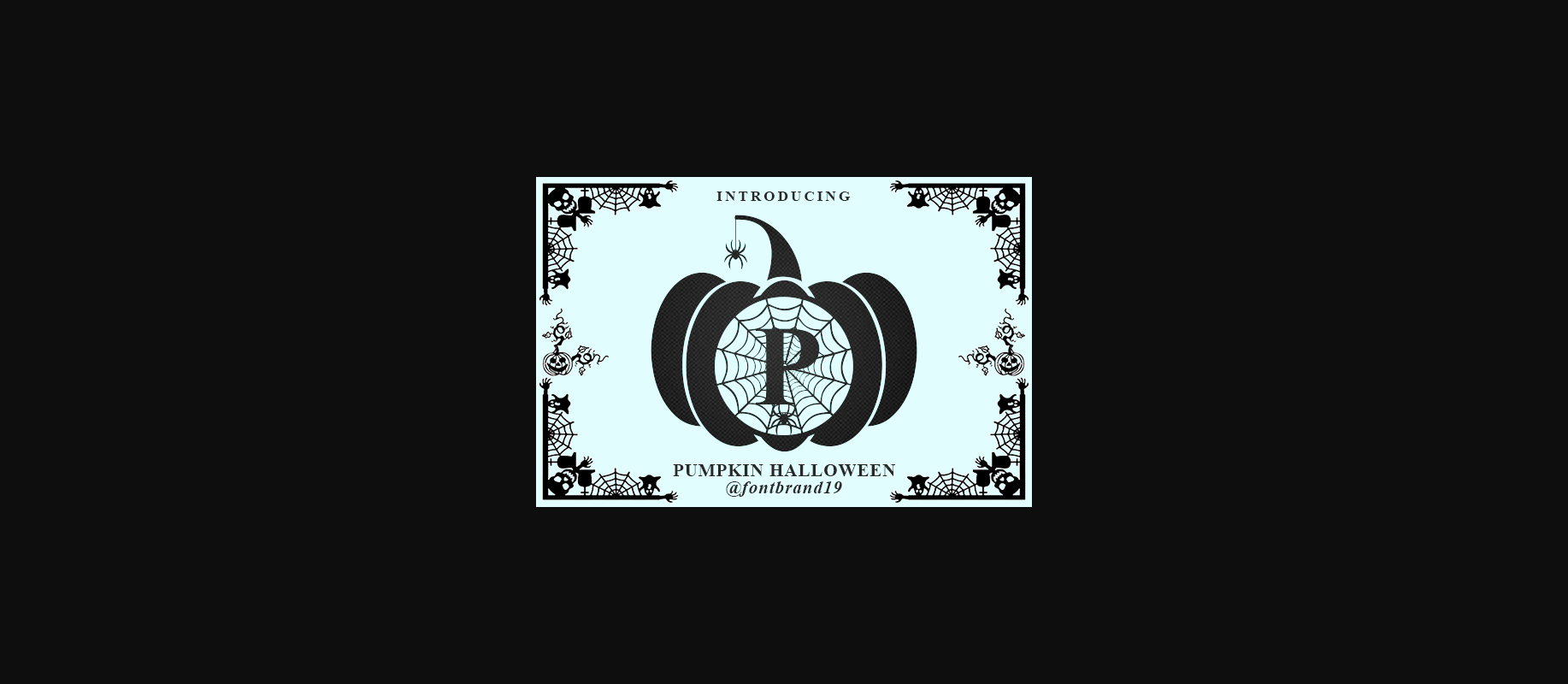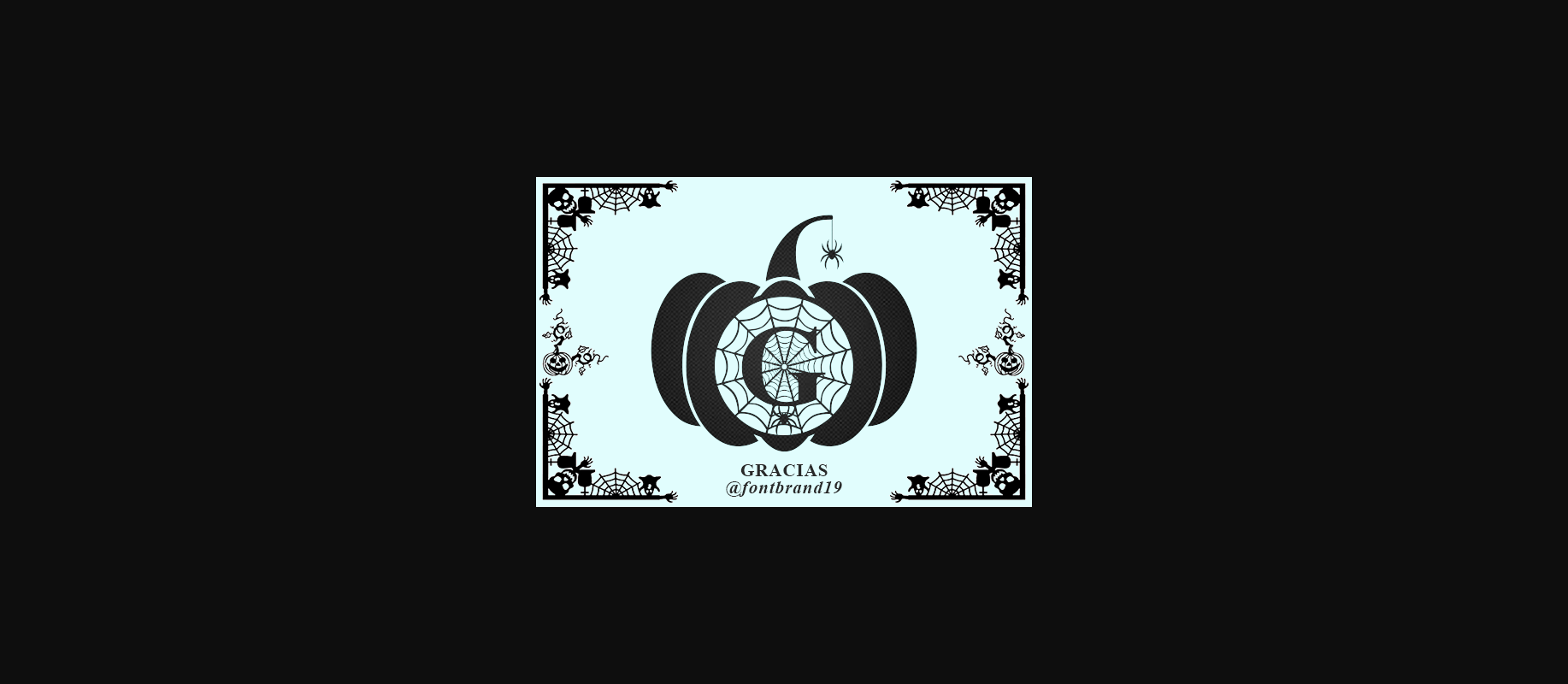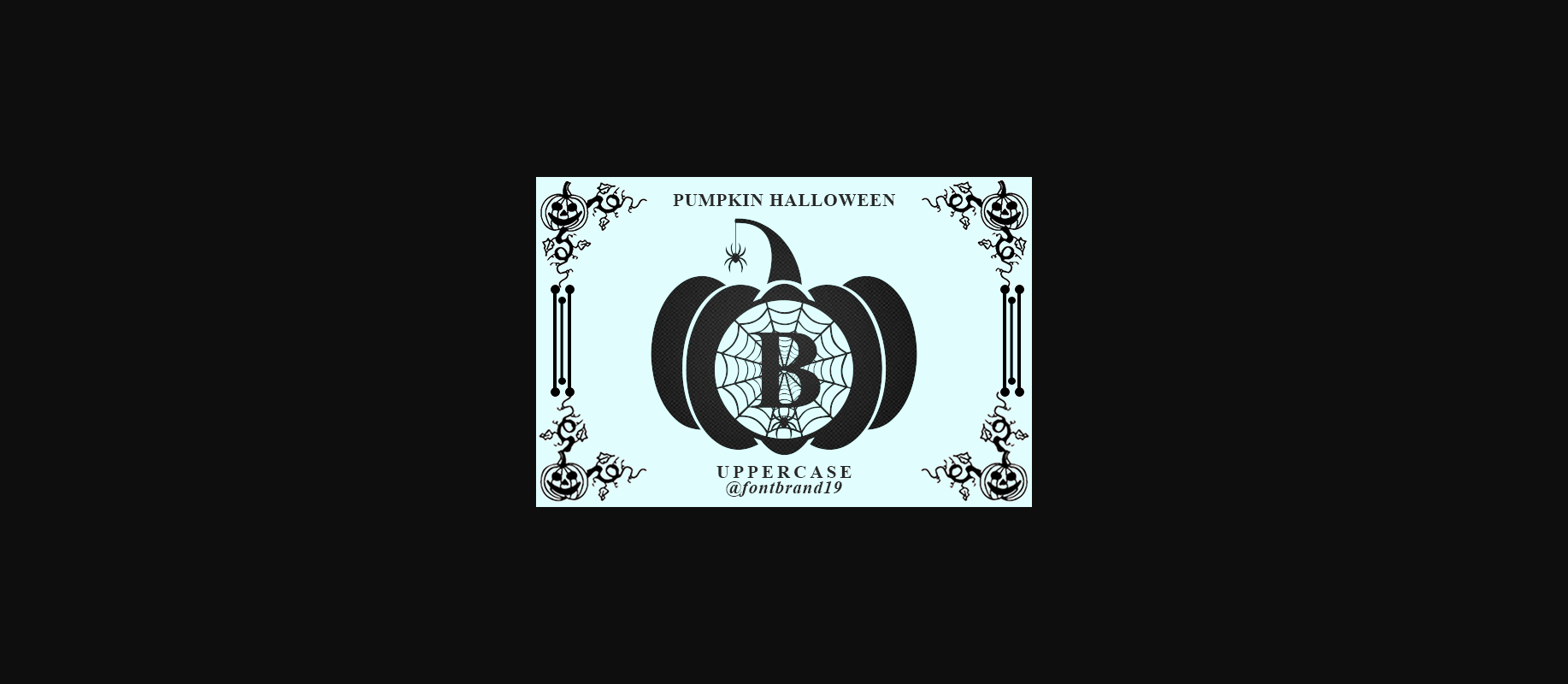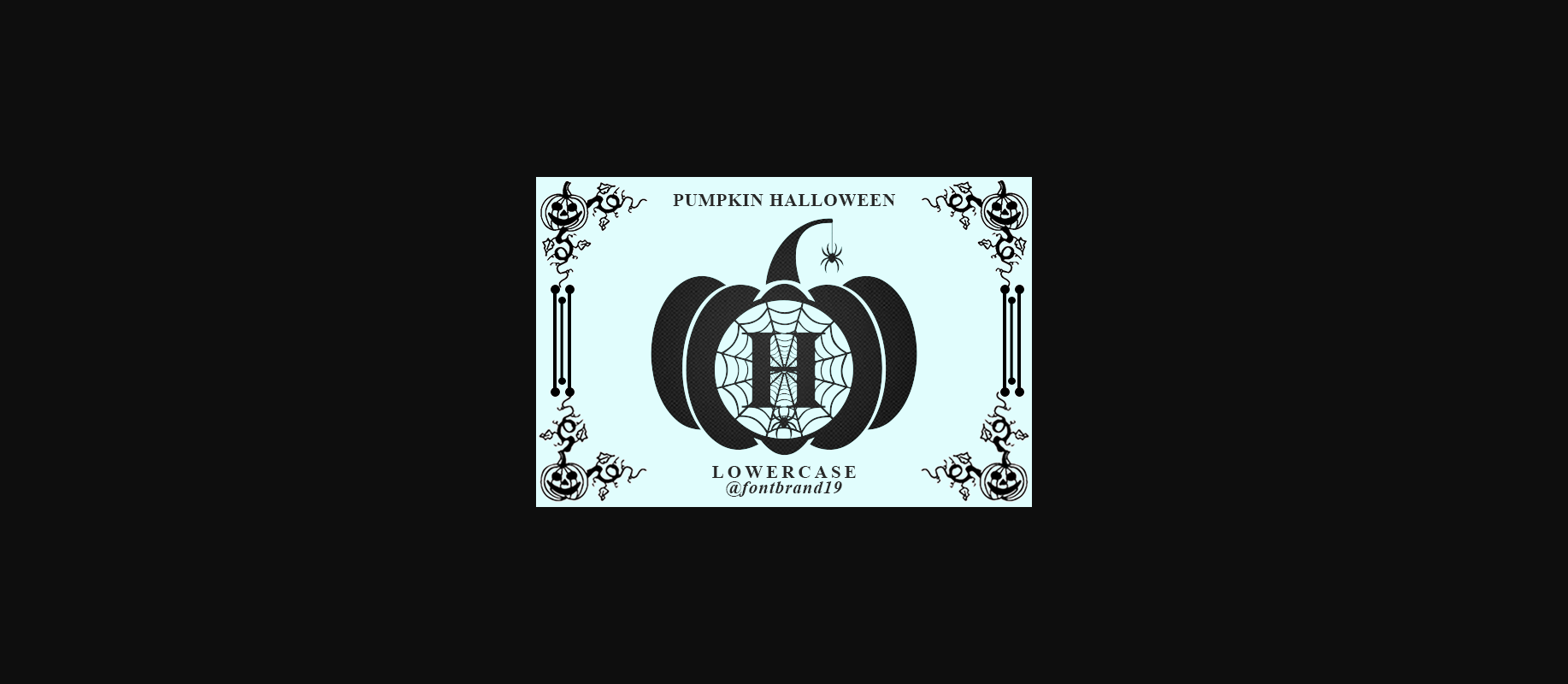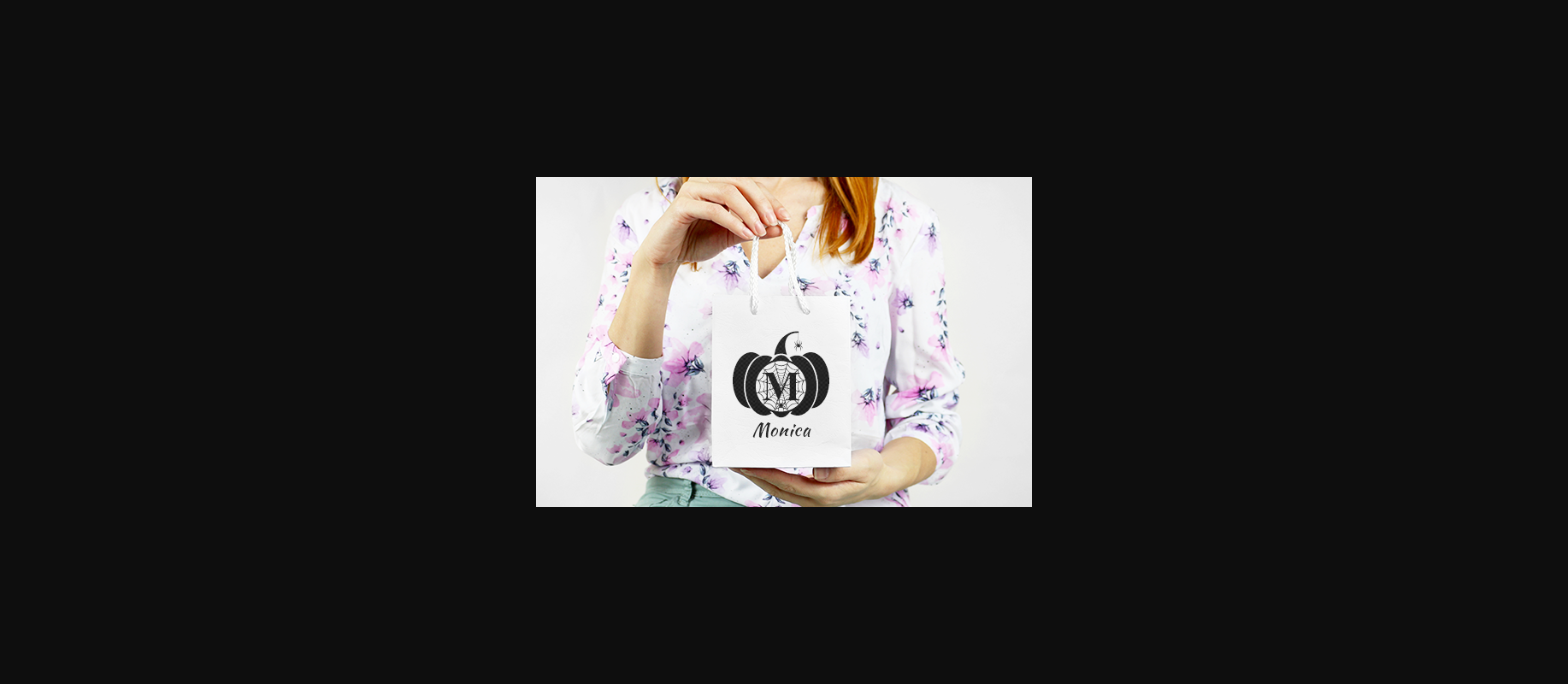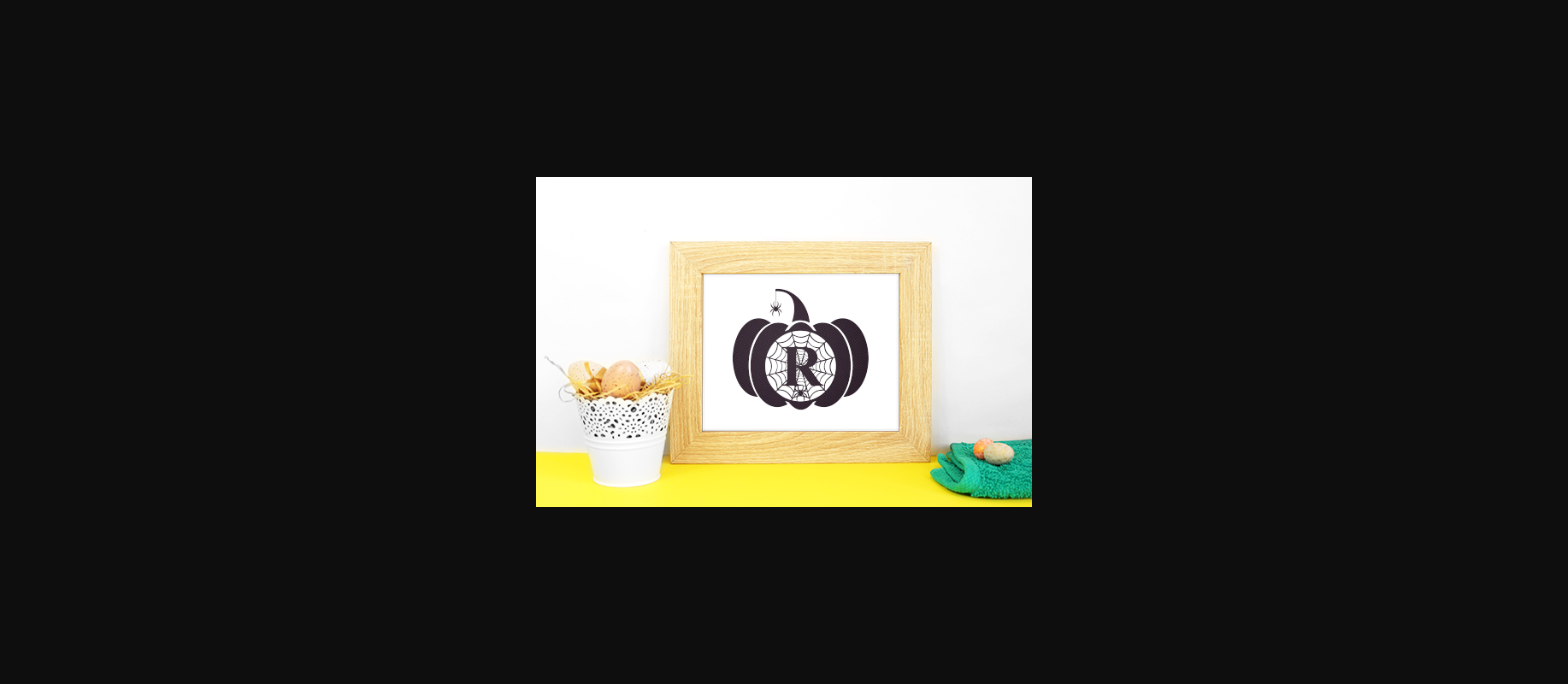
Pumpkin Halloween Monogram Font
About Pumpkin Halloween Monogram Font
Pumpkin Halloween Monogram is an incredibly unique and spooky decorative font. Add it to your Halloween crafts, horror movie posters, t-shirts and anything else that requires a spectacular look.